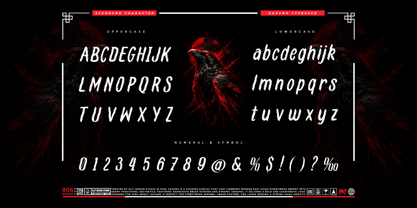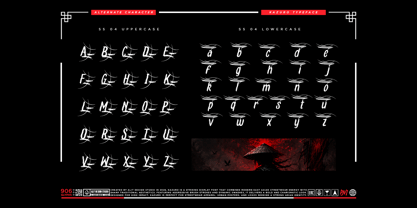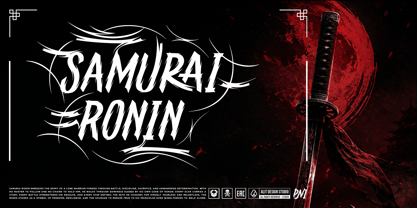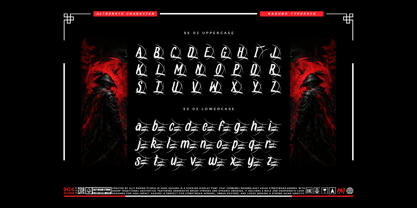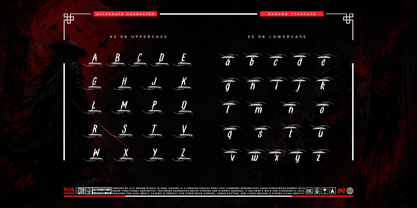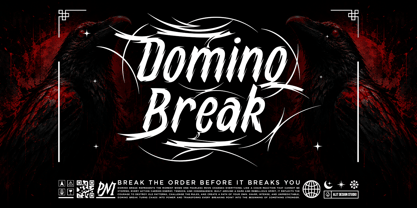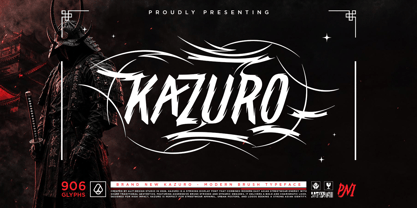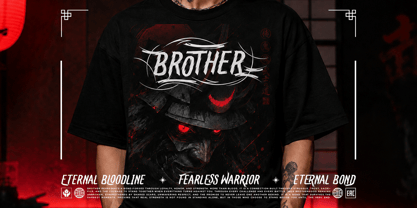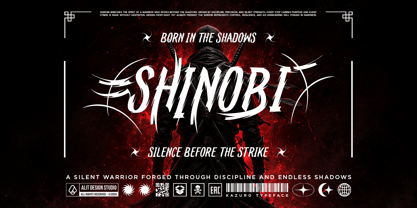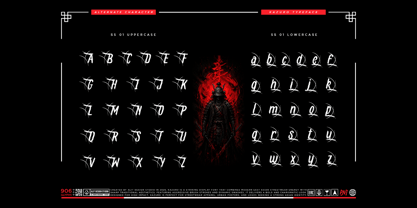
Kazuro
Kazuro Typeface – Modern Asian Streetwear Brush Font
Unleash the spirit of the warrior with Kazuro.
Proudly presenting Kazuro Typeface, a striking display font that seamlessly blends modern East Asian streetwear energy with sharp, traditional aesthetics. Featuring aggressive brush strokes, raw textures, and dynamic swashes, Kazuro delivers a bold, intense, and charismatic look that commands attention.
Inspired by the fearless soul of a lone ronin and the untamed energy of urban rebellion, this font is designed for high-impact visual presence. Whether you are designing for a modern apparel brand or creating an edgy event poster, Kazuro turns chaos into power and makes every composition stand out.
🎯 Perfect For:
• Streetwear & Apparel: T-shirt designs, hoodies, and urban fashion brands.
• Branding & Logos: Identities seeking a strong, aggressive Asian aesthetic.
• Editorial & Print: Urban posters, album covers, and bold magazine layouts.
• Digital & Social Media: High-impact social media graphics, gaming streams, and e-sports branding.
✨ Key Features:
• Massive Character Set: A comprehensive collection featuring 907 total glyphs.
• Standard Characters: Full uppercase and lowercase alphabets, alongside standard numbers and symbols.
• Extensive Alternates: Customize your designs with a huge variety of stylistic alternates, including SS01 through SS07 for uppercase and SS01 through SS06 for lowercase letters.
• Custom Ligatures: Packed with numerous uppercase and lowercase ligatures (such as ch, ck, fi, fl, ke, TH, and many more) to create a seamless, hand-painted flow.
• Global Reach: Includes full multilingual support to accommodate a wide range of languages.
Embrace the raw essence of battle and strength. Break the order before it breaks you with Kazuro Typeface.